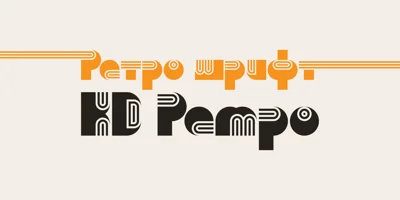
KD Pempo Font
KD Pempo Font is perfect for creative agency branding, modern art galleries, contemporary design studios, urban lifestyle magazines, trendy fashion labels, innovative tech startups, and cutting-edge advertising campaigns. This distinctive typeface brings bold creativity and artistic flair to any design project demanding visual impact and contemporary appeal.
What makes KD Pempo Font exciting is its striking combination of artistic expression and modern functionality that pushes creative boundaries. The font features unique letterforms with experimental character shapes and innovative design elements that challenge traditional typography conventions. Its bold personality creates instant visual recognition while maintaining practical readability, making it ideal for brands that want to stand out and communicate creative innovation.
The KD Pempo Font family includes regular and bold weights with complementary experimental variations and artistic alternates. The character set features creative ligatures, avant-garde symbols, designer ornaments, and contemporary decorative elements that enhance the font's artistic appeal. Advanced OpenType features provide unlimited creative possibilities for professional design applications and international artistic projects.
Whether you're developing creative brand identities, designing contemporary art publications, or creating innovative marketing materials, KD Pempo Font delivers exceptional creativity and professional versatility. This remarkable typeface transforms ordinary text into extraordinary visual statements that capture attention and inspire creativity while establishing memorable brand recognition in competitive creative industries.